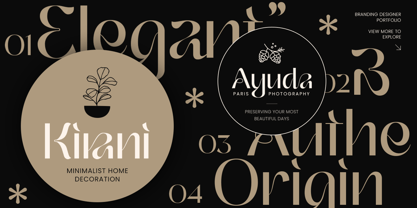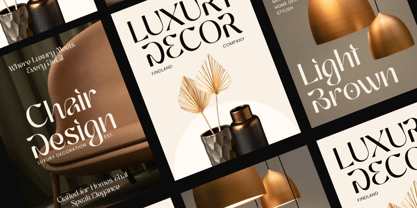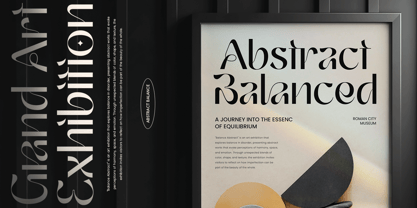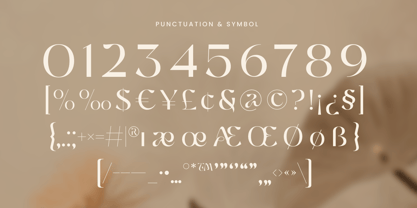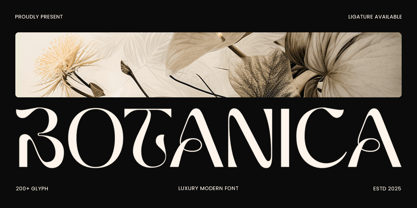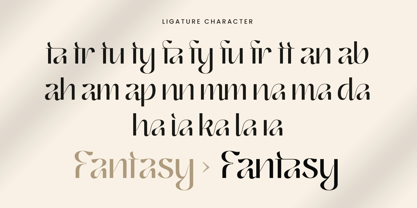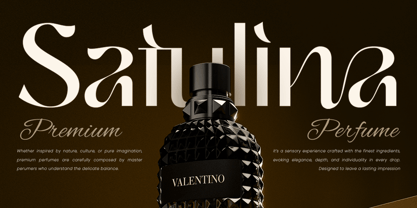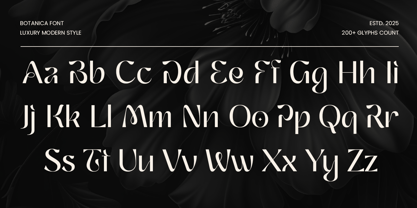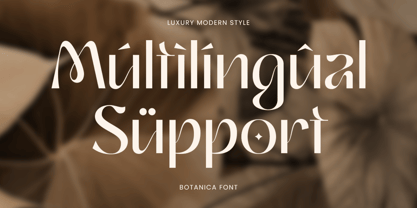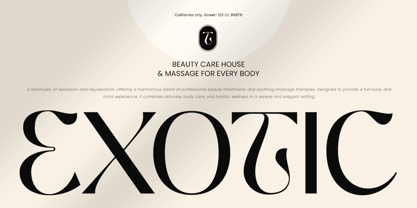
Botanica is a sleek and refined serif font that captures the beauty of luxury with a modern touch. With high contrast strokes, smooth curves, and timeless details, this font is perfect for branding high-end products, fashion campaigns, editorial layouts, wedding invitations, and beauty packaging. Botanica embodies class and minimalism while remaining full of character.
Rooted in botanical elegance and clean design principles, Botanica is versatile for both print and digital use. Whether you're crafting a graceful logo or a polished magazine cover, Botanica delivers visual harmony and premium aesthetics that stand out with effortless charm.
Let Botanica elevate your designs with its blend of sophistication and simplicity—perfect for brands that seek modern refinement.
Botanica Luxury Modern Font Features:
Elegant Serif Style with Modern Luxury Feel
Ideal for Branding, Fashion, Invitations & Editorials
Punctuation, Numbers, and Symbols
Uppercase and Lowercase
Opentype Features: Alternate & Ligature
Multilingual Characters available for:
Afrikaans, Albanian, Asu, Basque, Bemba, Bena, Breton, Chiga, Cornish, Dutch, English, Estonian, Filipino, Finnish, Friulian, Galician, German, Gusii, Indonesian, Irish, Italian, Kabuverdianu, Kalenjin, Kinyarwanda, Luo, Luxembourgish, Luyia, Machame, Makhuwa-Meetto, Makonde, Malagasy, Manx, Morisyen, North Ndebele, Nyankole, Oromo, Portuguese, Quechua, Romansh, Rombo, Rundi, Rwa, Samburu, Sango, Sangu, Scottish Gaelic, Sena, Shambala, Shona, Soga, Somali, Spanish, Swahili, Swedish, Swiss.
Botanica